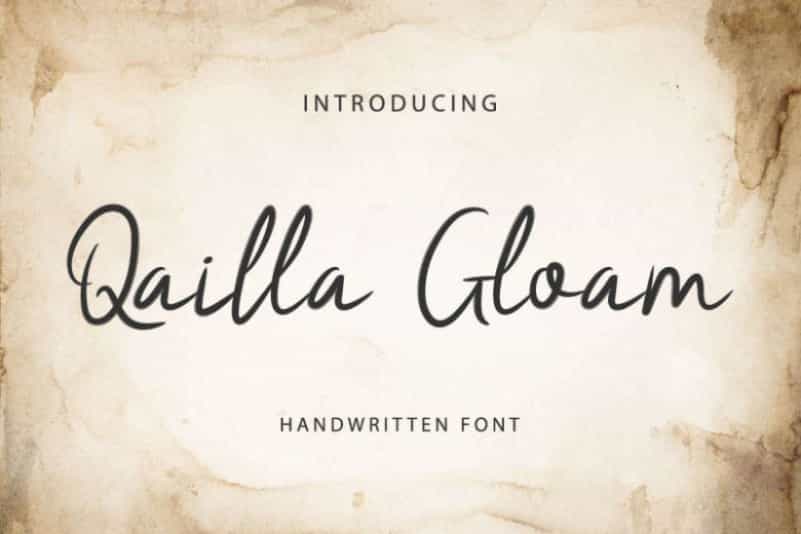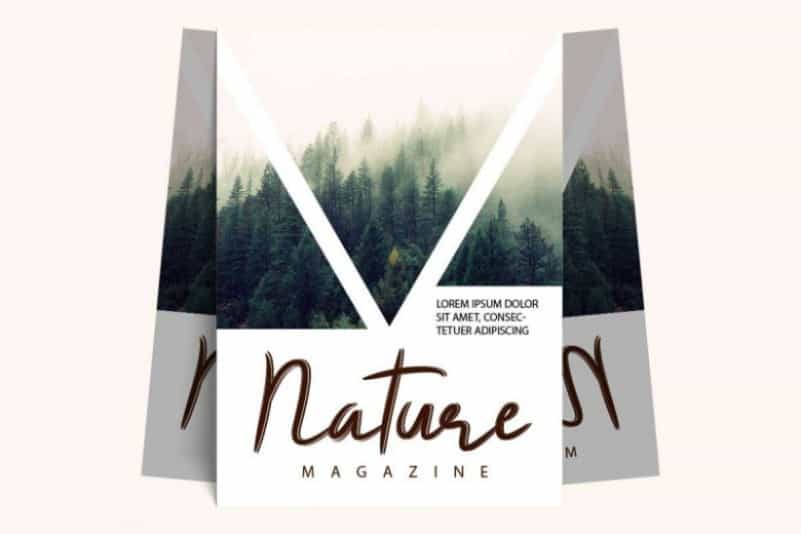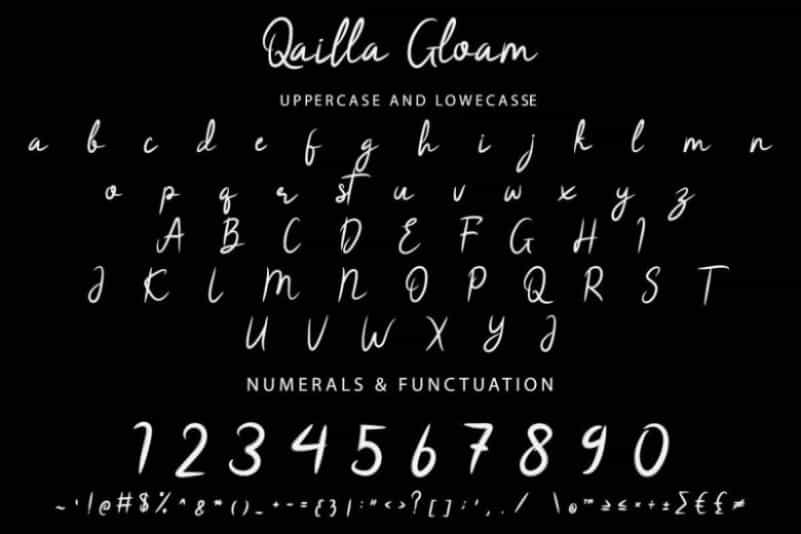
Qailla Gloam font has an unique and amazing calligraphy style which is unrepeatable. The characters of this font are elegant, feminine, vintage, luxury and a brush-like natural look. With these styles you can explore many industries and designs categories : Wedding, catering, and Music are some of the main services offered at Display. Also we have a cafe with florist that has gardening areas; makeup service etc.